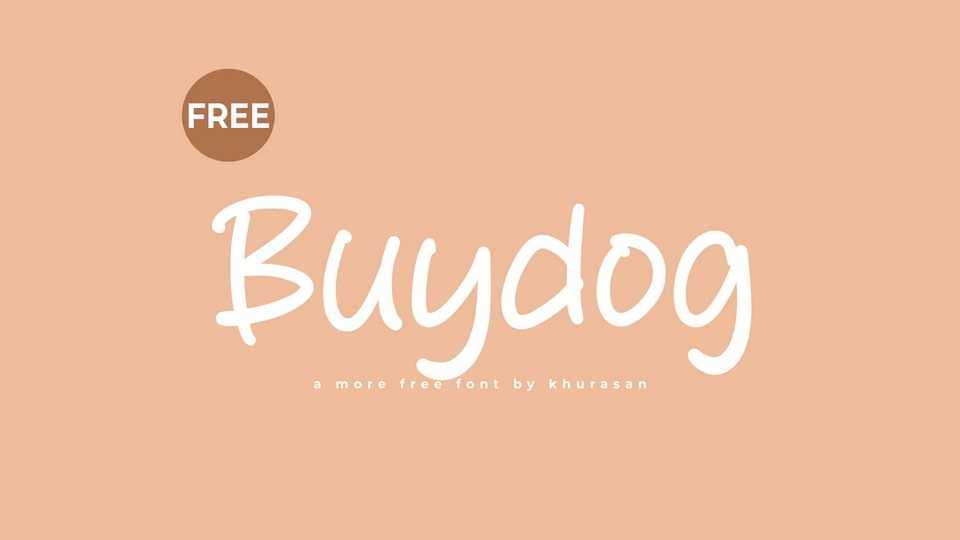
Download Buydog font, a casual and relaxed handwritten font that embodies the laid-back vibe of a lazy afternoon. Buydog font is crafted with fluid strokes and gentle curves, capturing the ease and informality of natural handwriting.